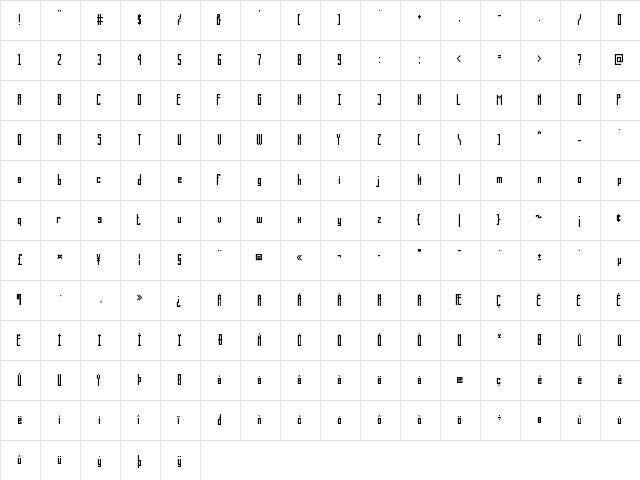
Space Race Regular
| Designer | Margaret Nichol |
Design Context for Space Race Typeface
Space Race offers clean, dependable letterforms without strong stylistic allegiance, making it a practical choice for designers who need flexibility.